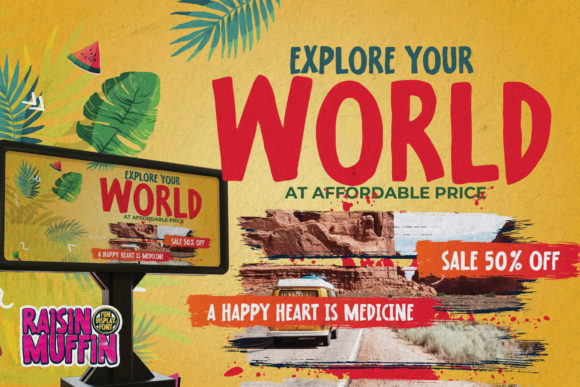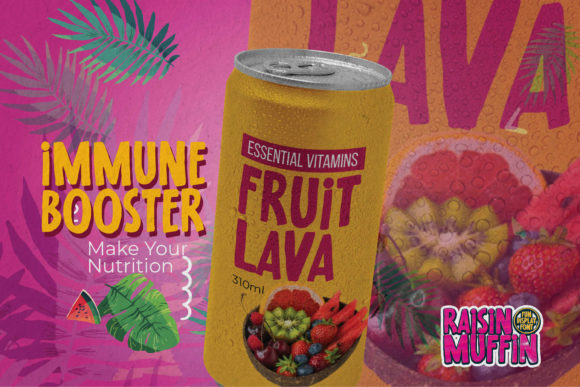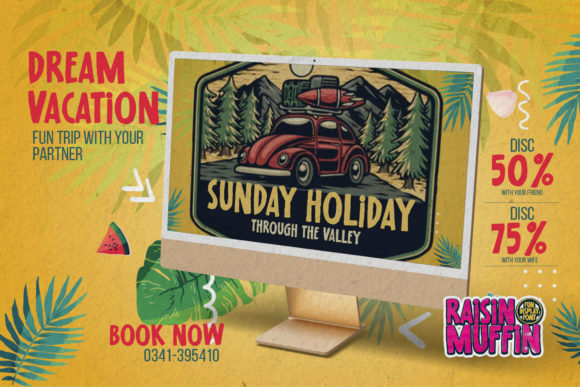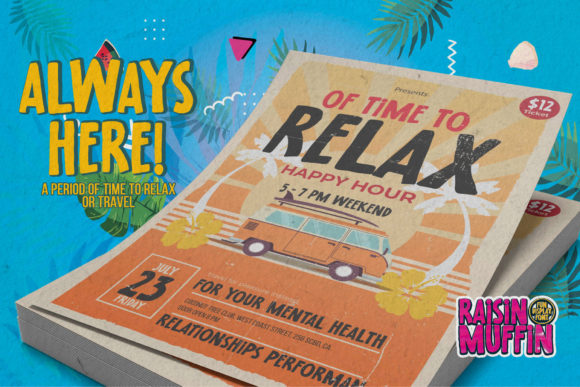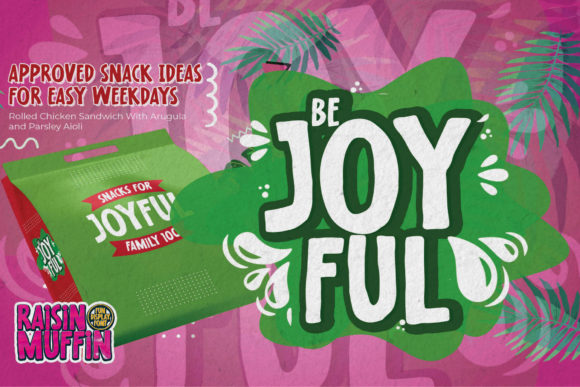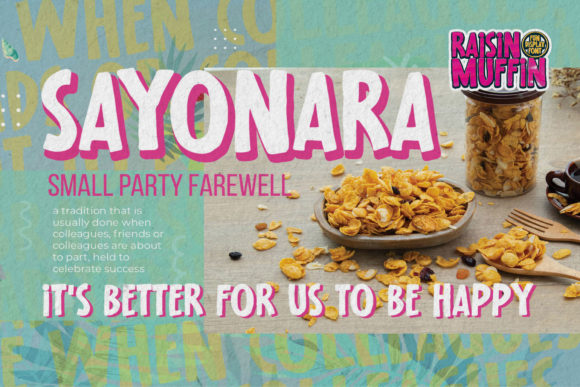
Introduction to Raisin Muffin Font
Raisin Muffin is a cool and thick lettered display font.
Raisin Muffin Font offers exceptional quality and versatility, making it a valuable addition to your design toolkit. Whether you’re creating for personal projects or commercial use, Raisin Muffin Font delivers professional results.